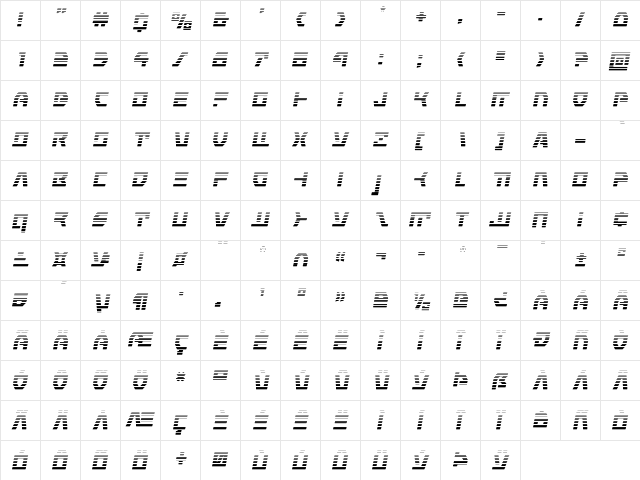
Command Override Gradient Italic Italic
Design Context for Command Override Gradient Italic Typeface
Command Override Gradient Italic is a composed and adaptable typeface that performs quietly and consistently across a wide range of design contexts. Its italic angle brings a sense of urgency and motion to the letterforms.